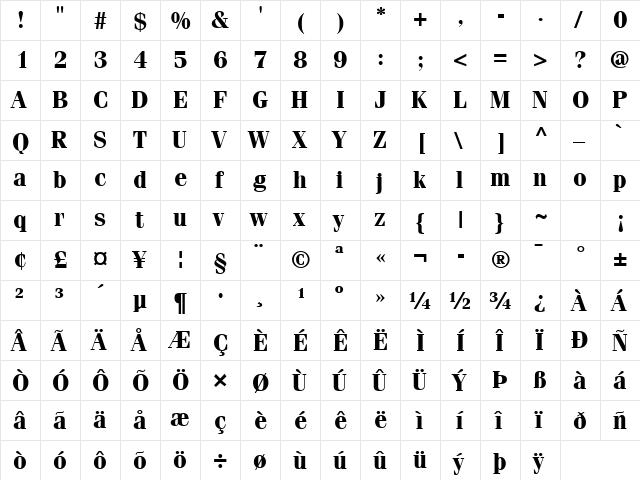
Felicia Bold Font Preview
Felicia Bold
Design Context for Felicia Typeface
Felicia is a composed and adaptable typeface that performs quietly and consistently across a wide range of design contexts. Its bold stroke weight gives it real presence on the page.